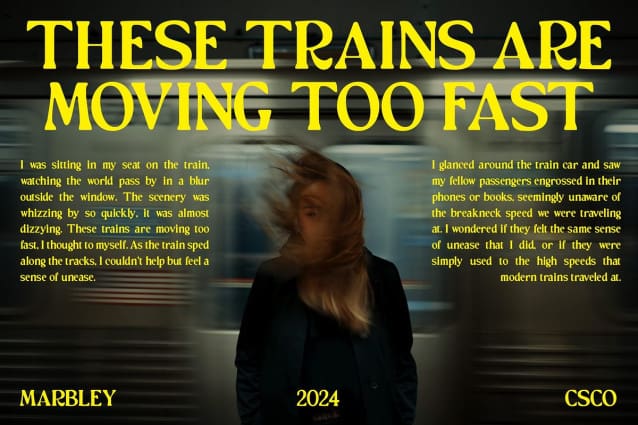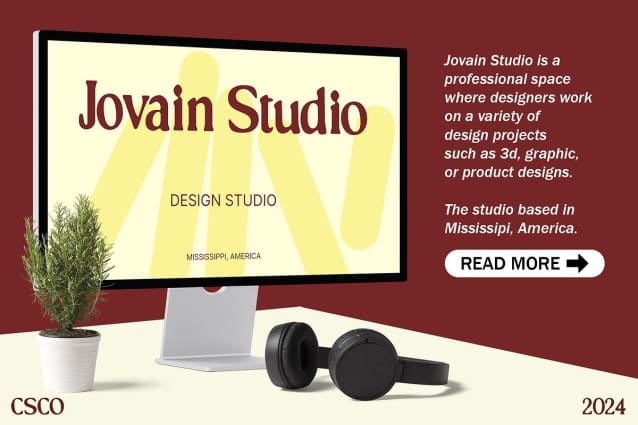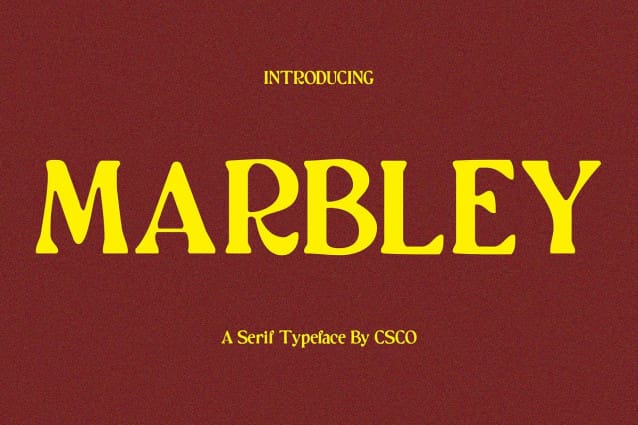
Marbley Blur Font
Marbley Blur Font is a serif font designed to captivate. Its unique display style combines classic serif elements with a blurred aesthetic, adding a modern twist to traditional design.
With its blurred aesthetic, Marbley Blur stands out in any design. Perfect for headlines, banners, and other display purposes, this font adds a sense of depth and intrigue to your projects.
Marbley Blur is ideal for projects that require a font that grabs attention. Whether you’re designing a poster, logo, or website, this font is sure to make an impact and leave a lasting impression on your audience.
Despite its bold display style, Marbley Blur is versatile and stylish. Its blurred aesthetic adds a touch of creativity to your designs, making it a great choice for a wide range of projects.